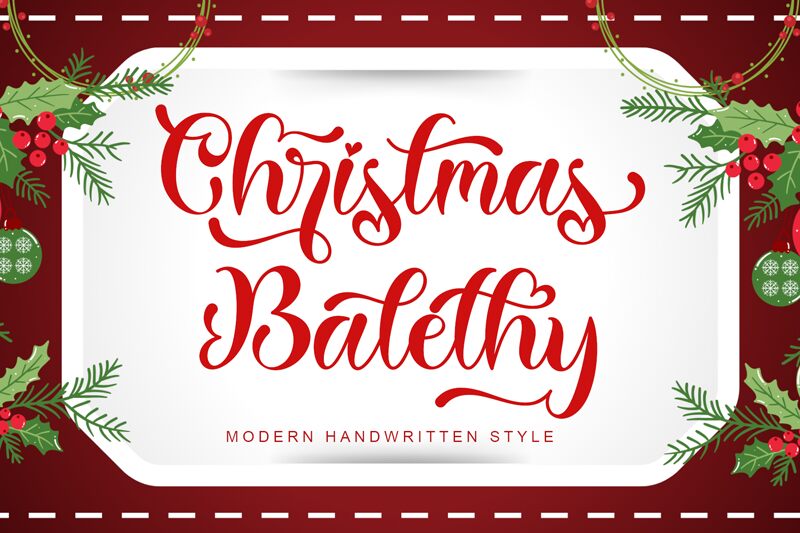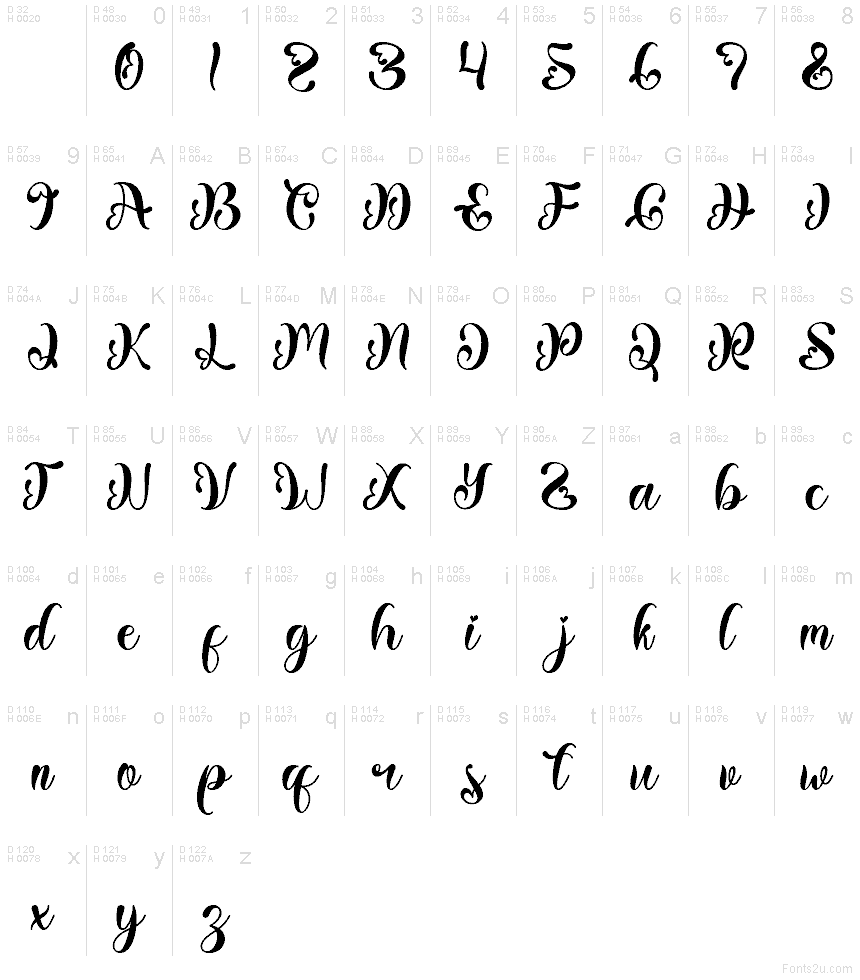
Christmas Balethy
Christmas Balethy font by Yoga Letter is a free Christmas holiday script typeface with the warmth of hand-lettered ink on a card. Its sweeping curls, looping connections, and slightly bouncy rhythm feel like words written in one confident, festive stroke. The strokes are full and inky, with just enough contrast to keep every word lively, like ribbons curling around a wrapped gift.
Using Christmas Balethy, your text instantly picks up that cozy, fireside-card aesthetic that’s so hard to fake. This free font works beautifully for Christmas cards, party invitations, seasonal logos, gift tags, social media greetings, and printable decor. Set it large for headlines so the flourishes can breathe, and pair it with a simple sans serif for small details like dates or website URLs.